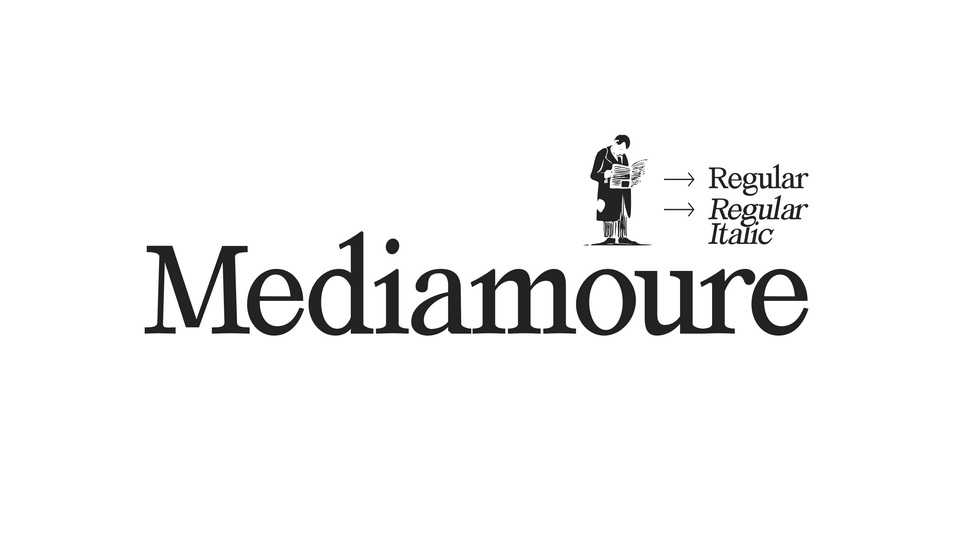
Download Mediamoure font, a serif typeface that captures the essence of vintage typography. Inspired by the titles of old newspapers and inaccuracies of typeface printing, Mediamoure typeface brings a unique trait to your projects!